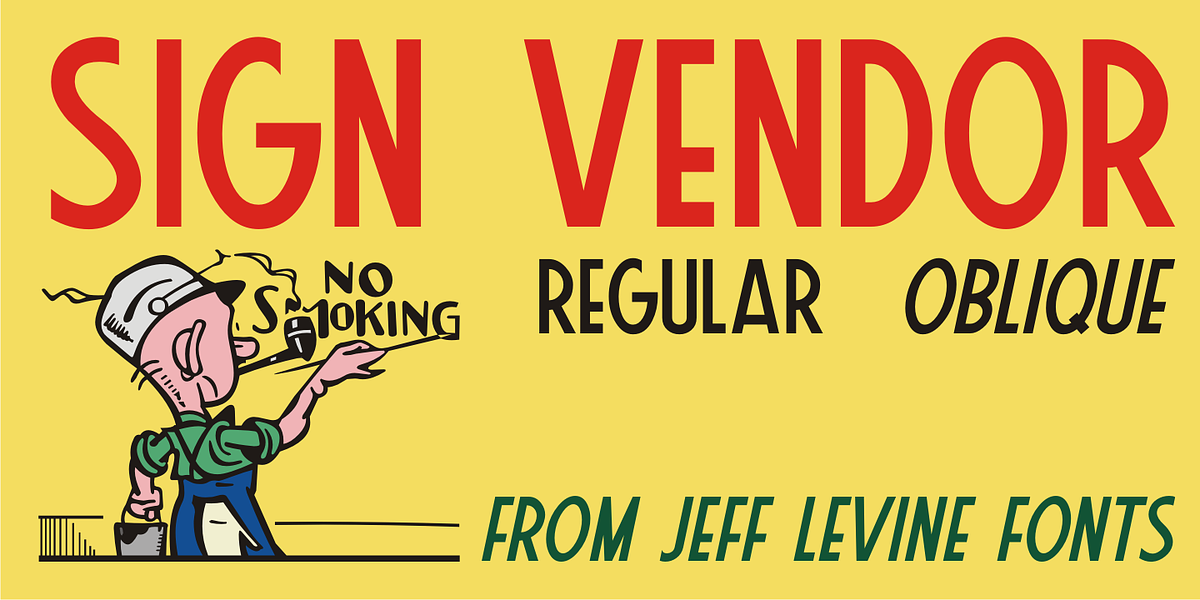
Sign Vendor JNL
Sign Vendor JNL is a simple sans modeled from hand-lettering with a touch of Art Deco influence. The design is from a 1930s poster promoting winter activities in New York State.